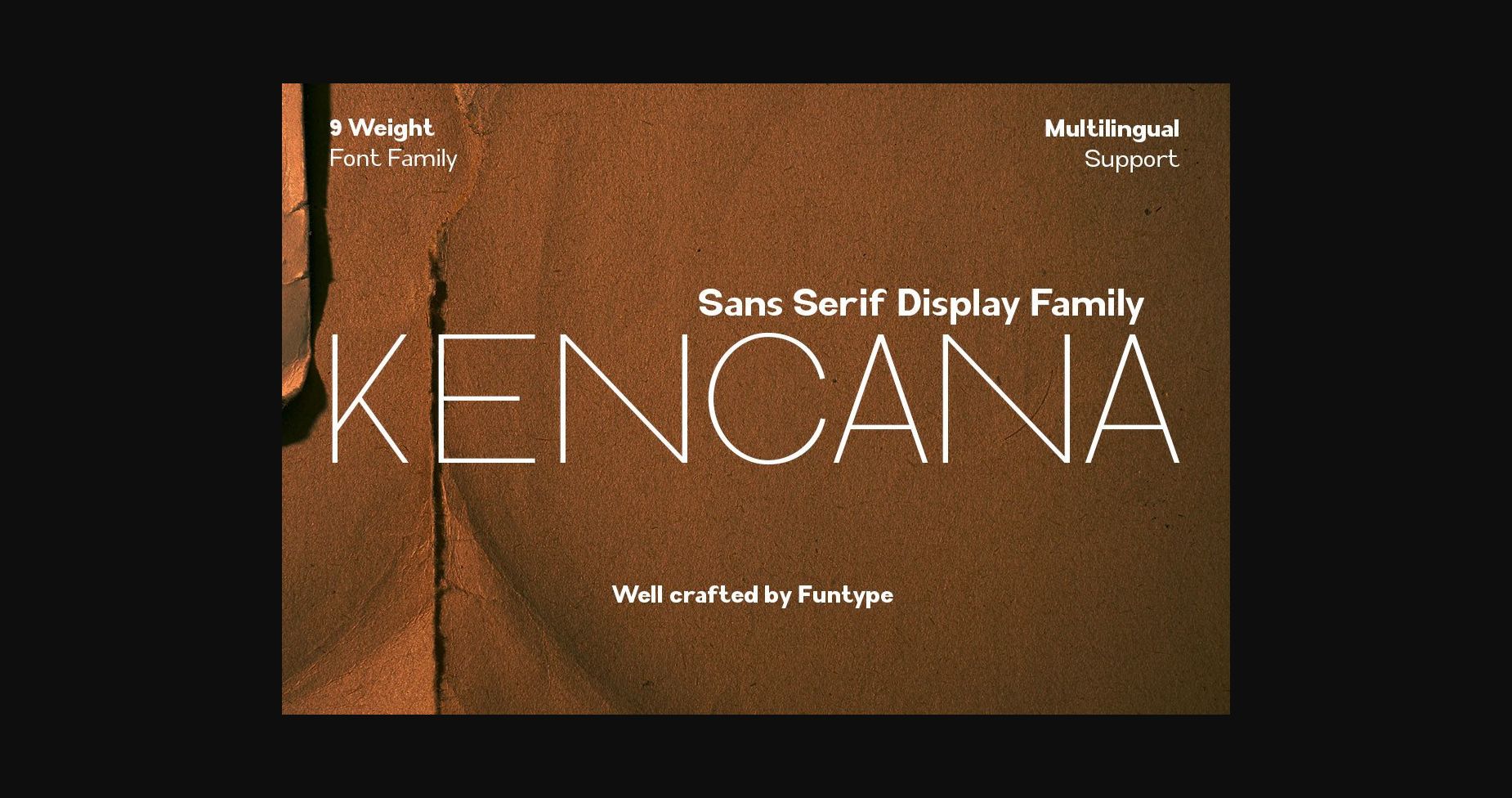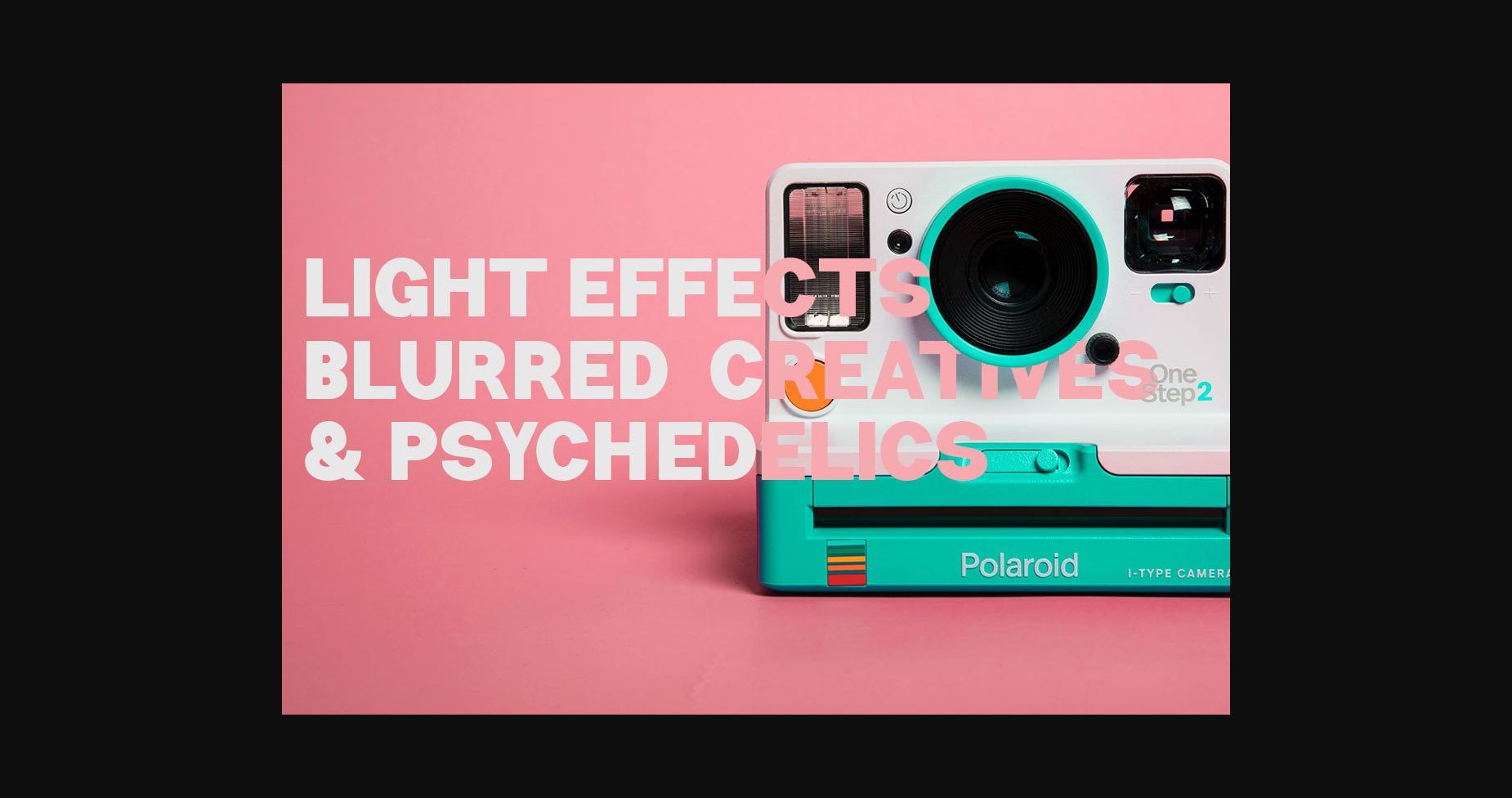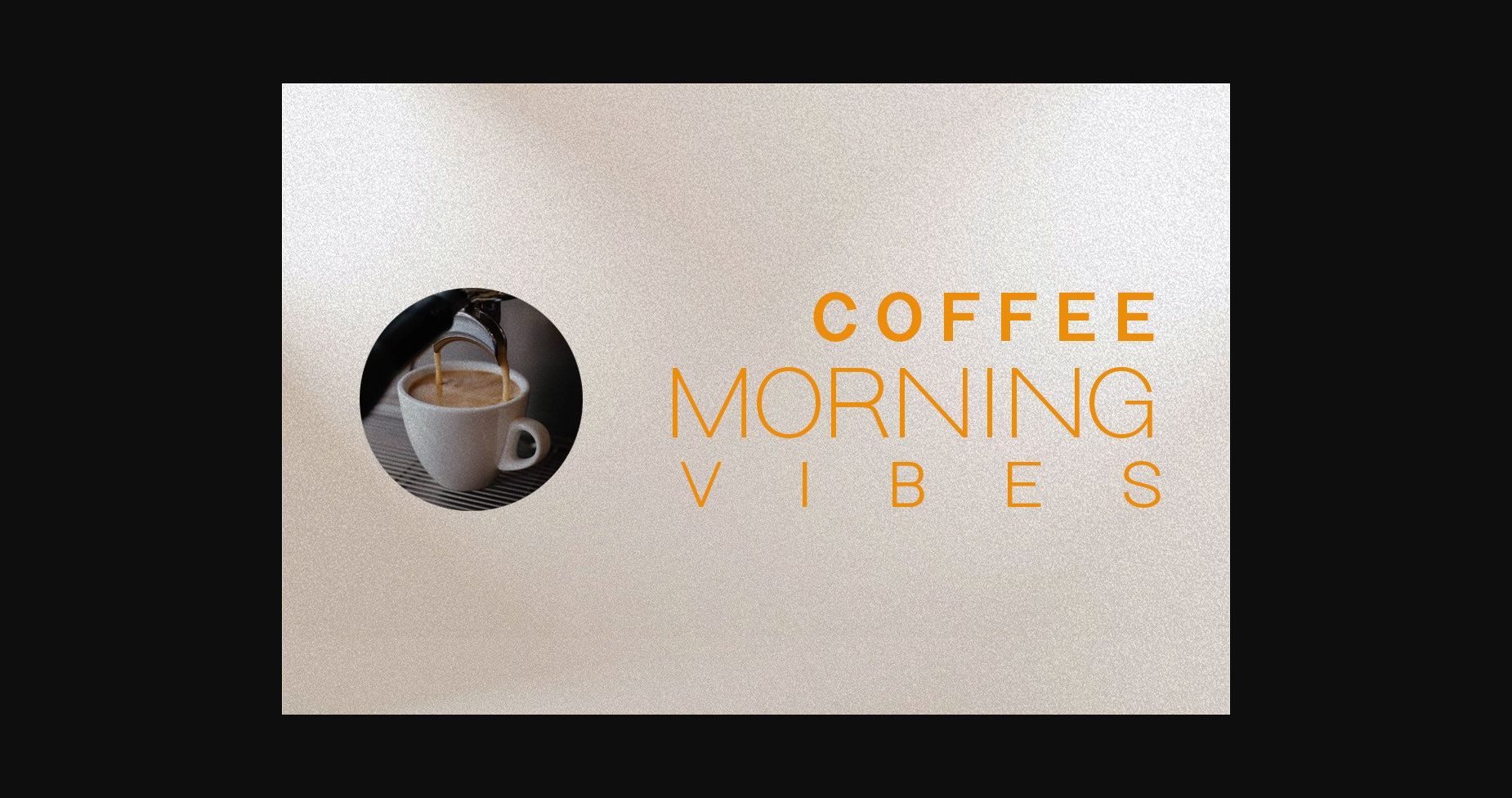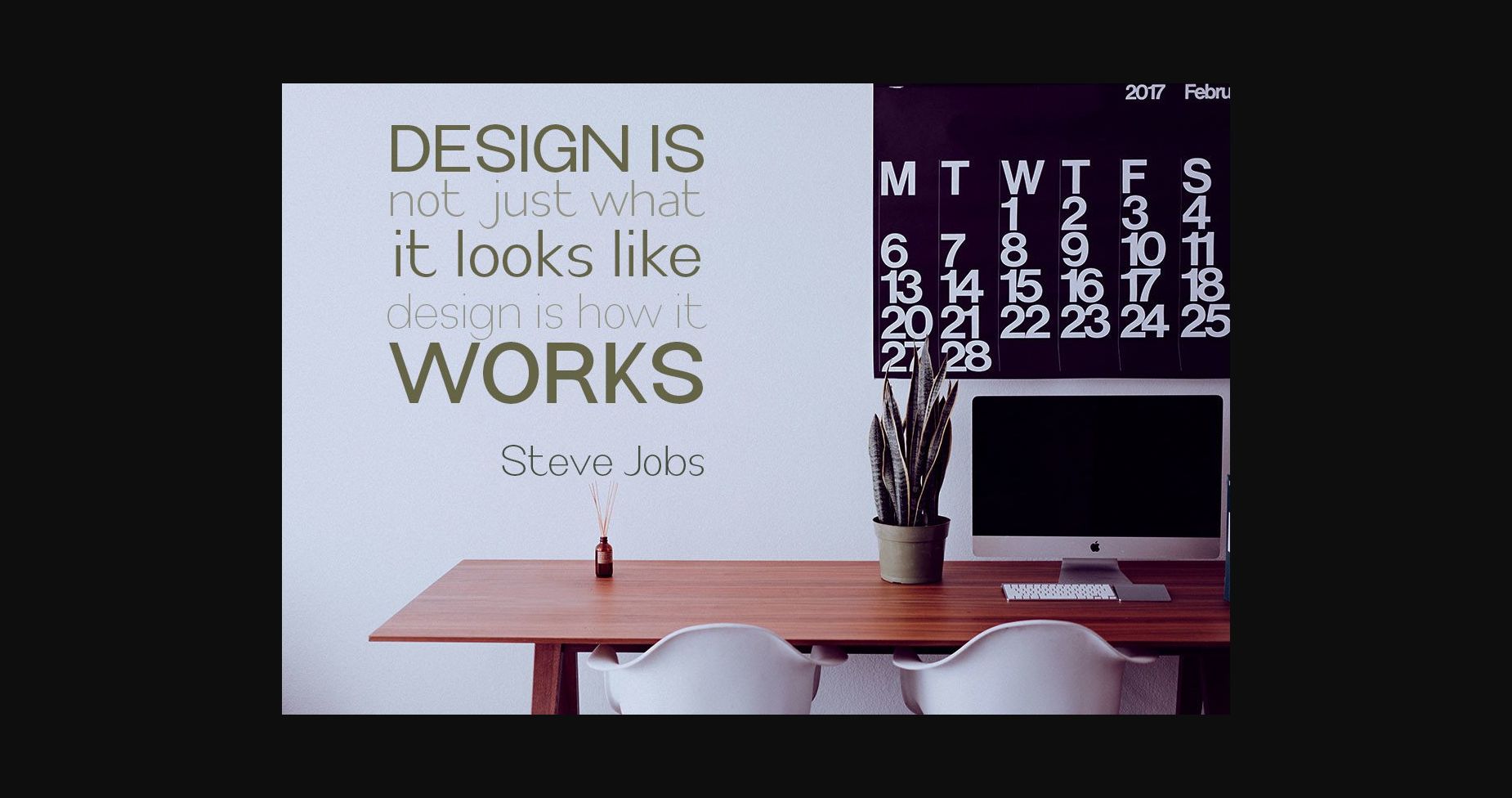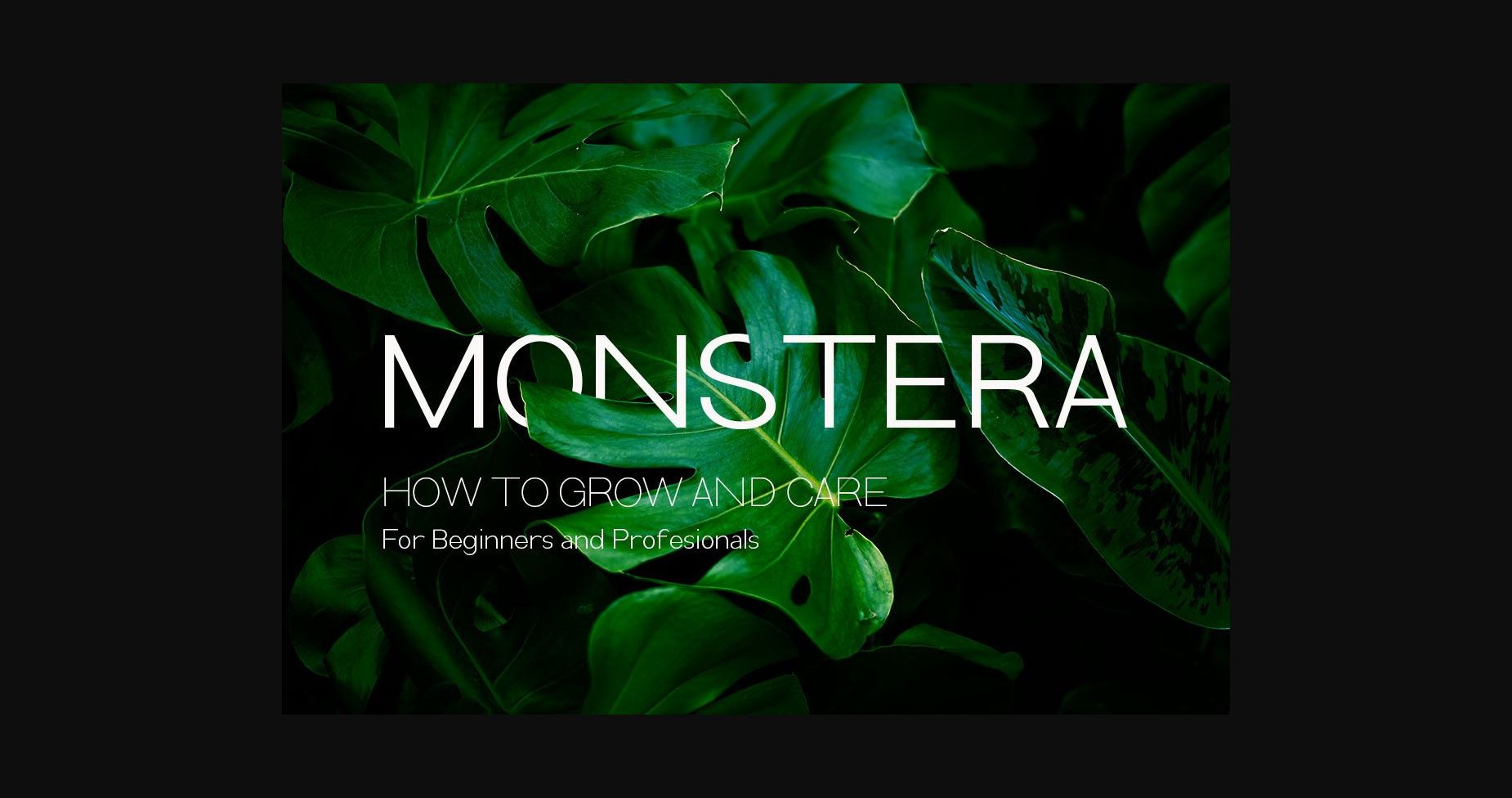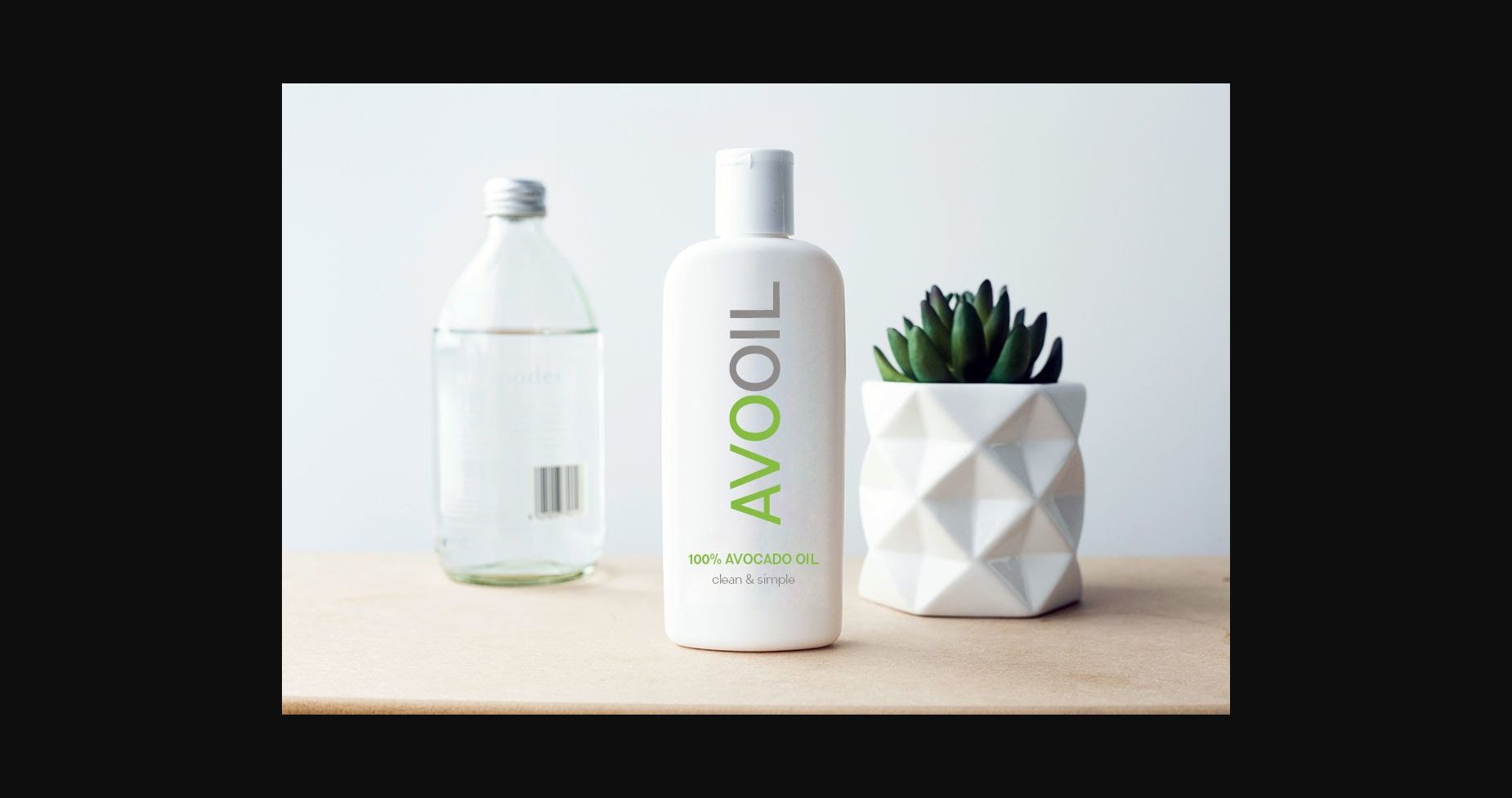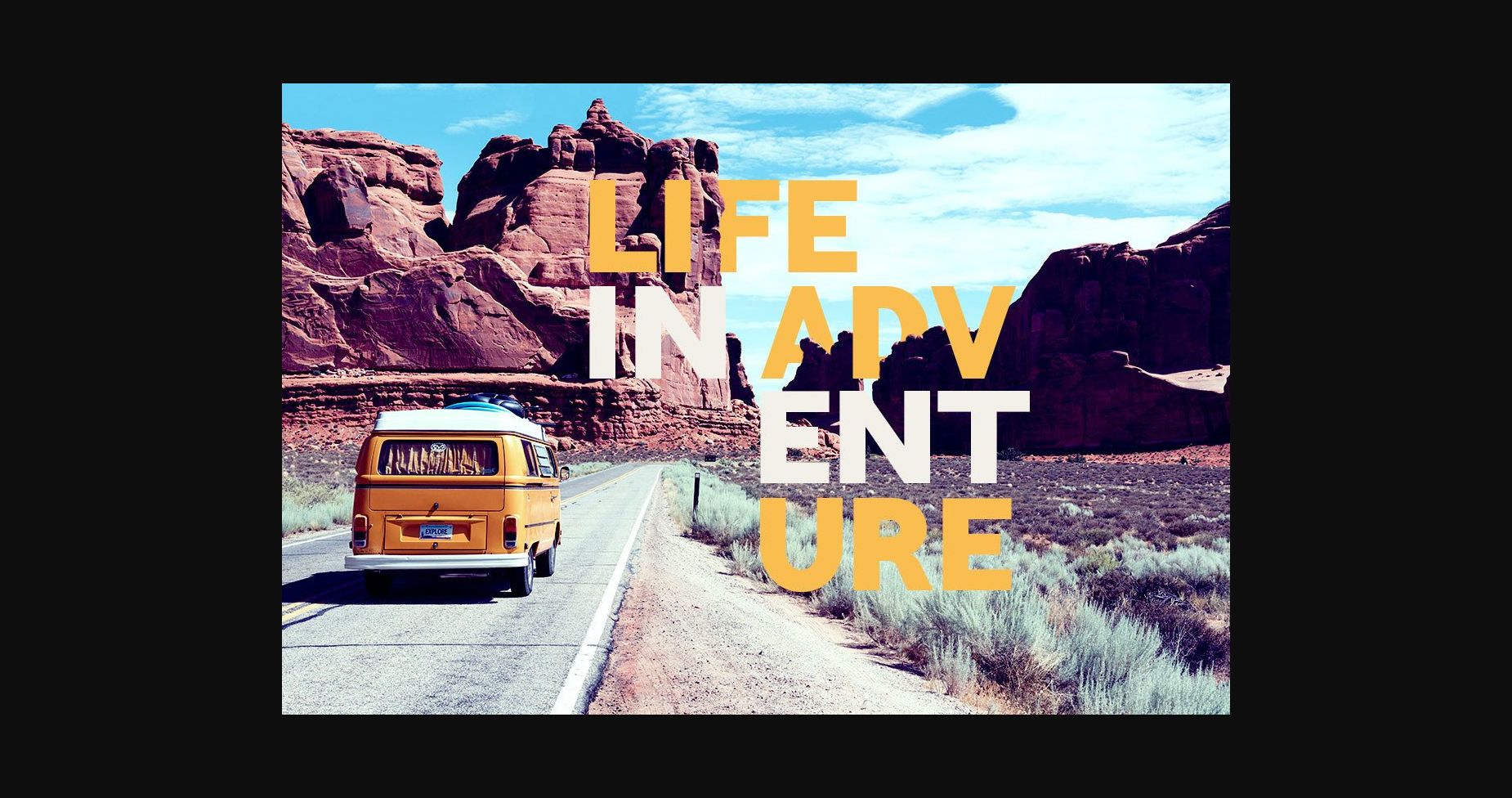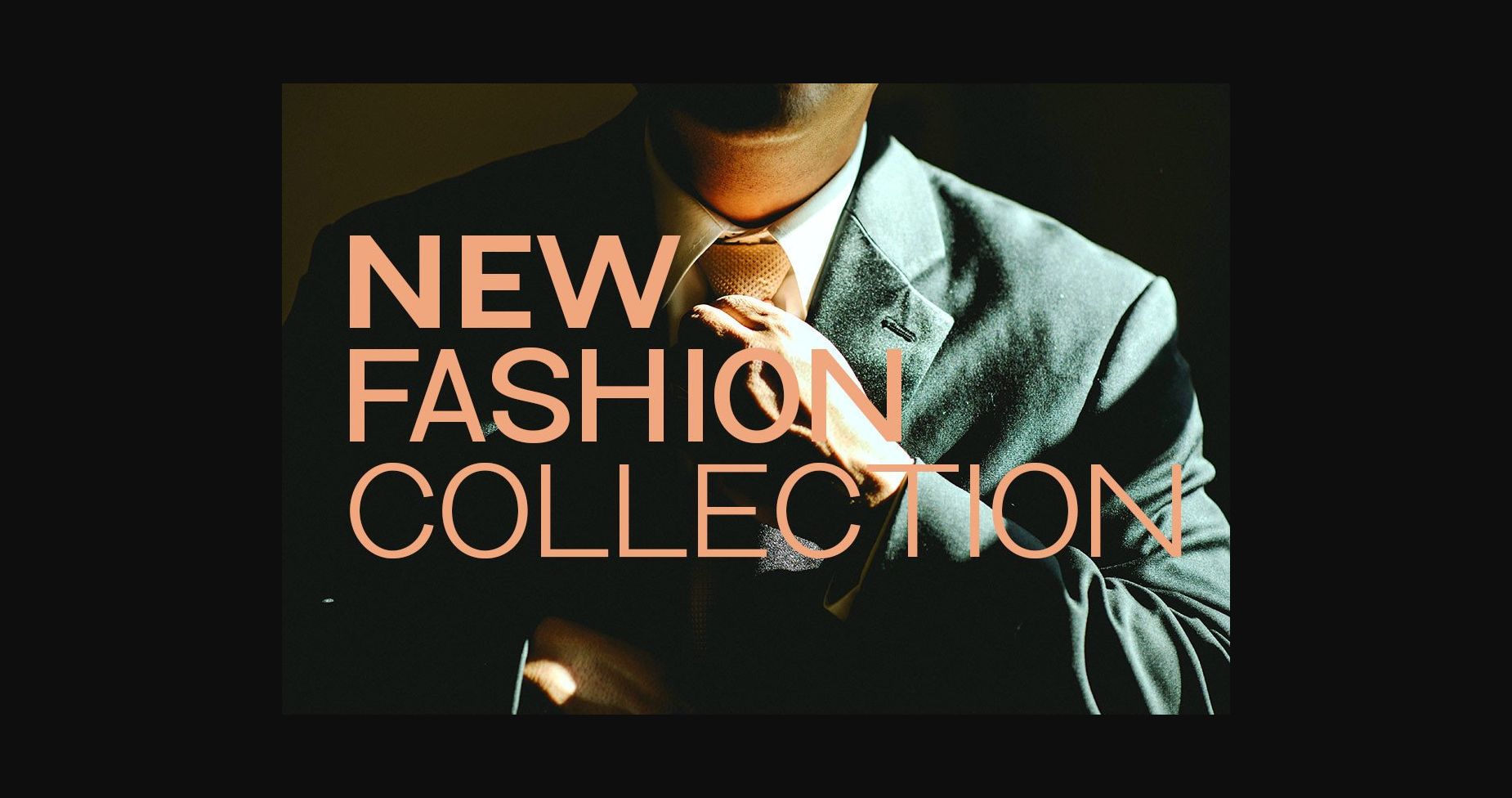
HomeSans Serif FontsKencana Font Sans Serif Fonts Kencana Font FacebookXPinterestWhatsApp 1 of 11 ... Kencana Font Poster 2... Kencana Font Poster 3... Kencana Font Poster 4... Kencana Font Poster 5... Kencana Font Poster 6... Kencana Font Poster 7... Kencana Font Poster 8... Kencana Font Poster 9... Kencana Font Poster 10... Kencana Font Poster 11... About Kencana Font Kencana is a geometric and clean sans serif font. Its minimalist and clean vibe can easily apply to your favorite designs such as book covers, magazines, social media posts, invitations, and so much more! DOWNLOAD NOW People also explored Play Date Font Mentions Font Cuteflaminggo Font Coffee Break Font Bastique Font Tour Font Gummies Font Holymast Font Moth Halloween Monogram Font 385 0 TagsKencanaKencana Font Previous articleUpgrade FontNext articleQuaro Font LEAVE A REPLY Cancel reply Comment: Please enter your comment! Name:* Please enter your name here Email:* You have entered an incorrect email address! Please enter your email address here Website: Save my name, email, and website in this browser for the next time I comment. Personal Use Free Artisan Signature Personal Use Free Read more about this font Eric”s Personal Use Free Read more about this font Hollow Personal Use Free Read more about this font Advantage Personal Use Free Read more about this font BLOG How to Install and Use Fonts on Windows, macOS, and Web Projects How to Install and Use Fonts on Windows, macOS, and Web Projects Fonts are a crucial part of design and branding. Whether you’re designing a... How to Cut Any Font on Cricut: Convert a Font to SVG (Free) Best Fonts for YouTube Videos: Make Your Thumbnails Stand Out 5 Fonts That Will Dominate Design Trends in 2026